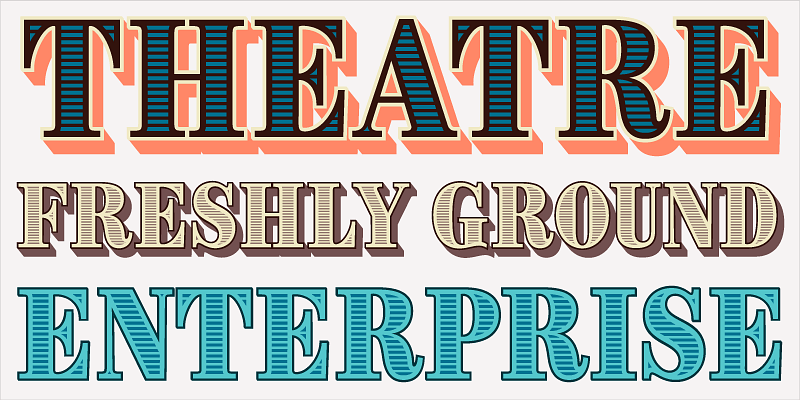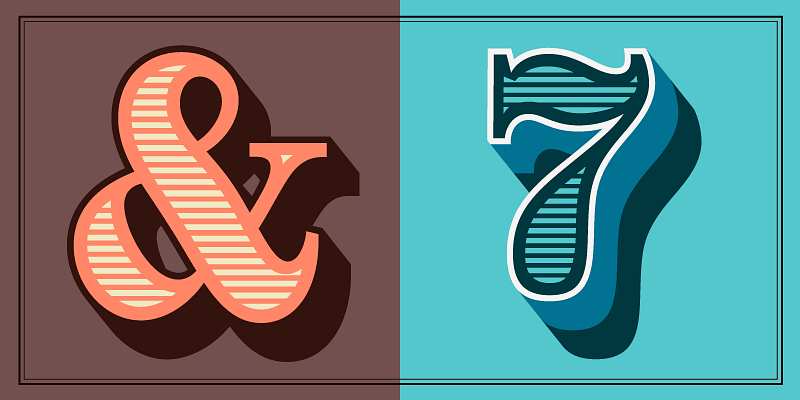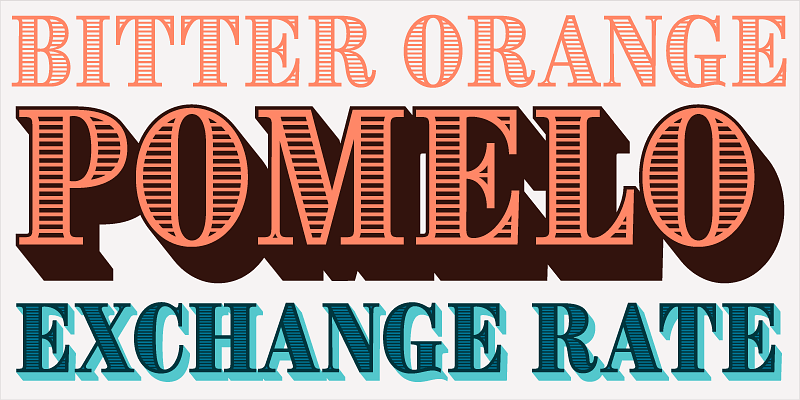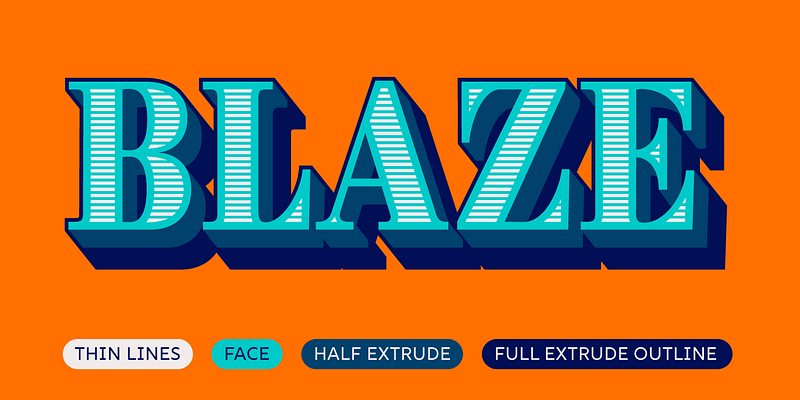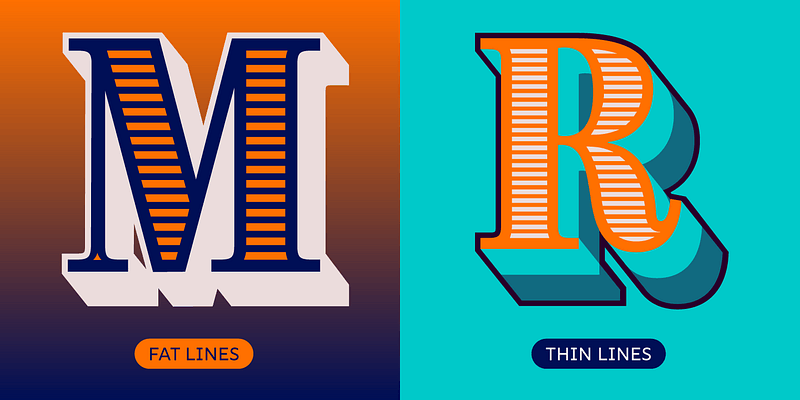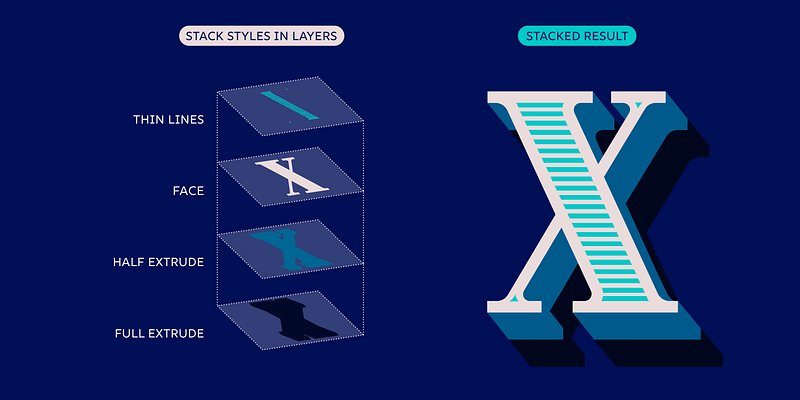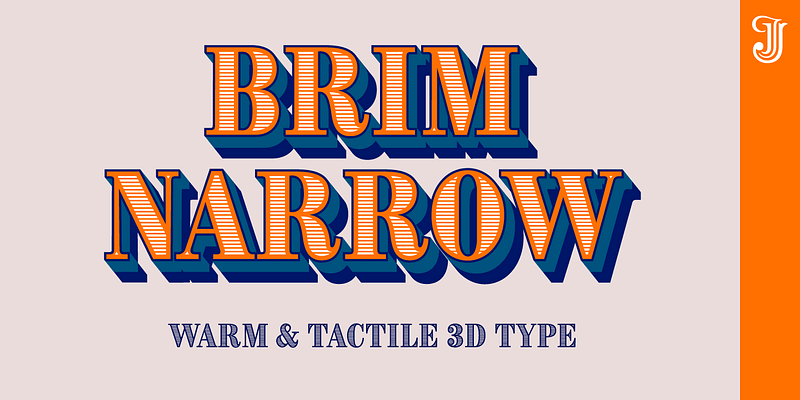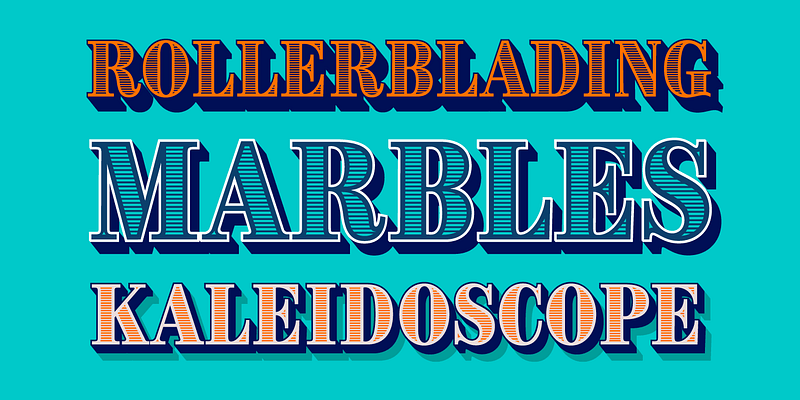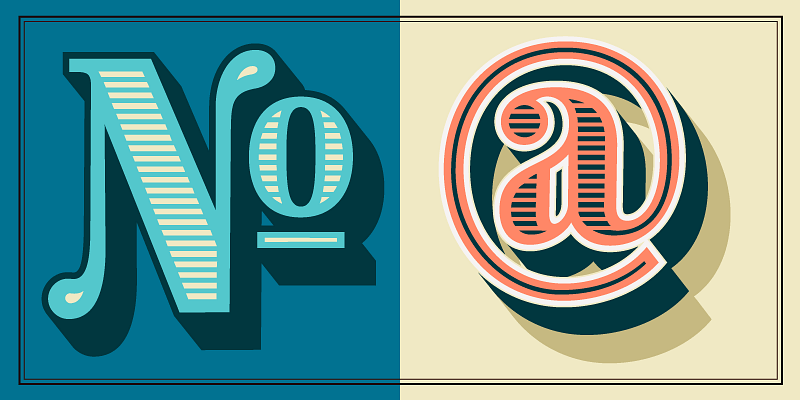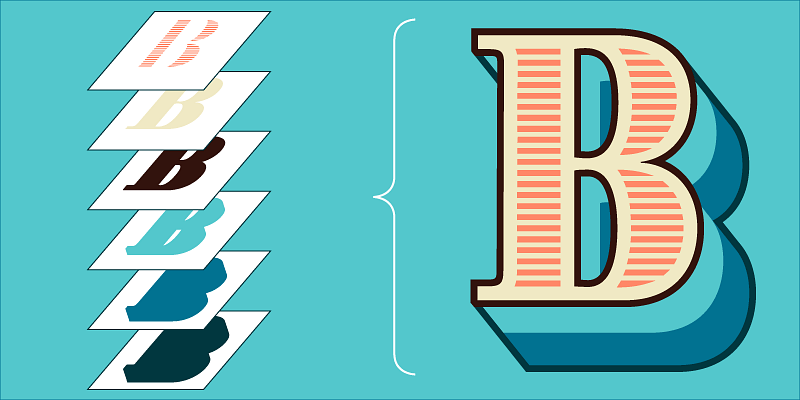
Inspired by chromatic woodtype from the 1800s, Brim Narrow’s styles stack to create a huge variety of decorative titles. Warm and tactile, it’s perfect for posters, packaging and logotypes.
The typefaces in Jamie Clarke’s growing library are often inspired by the lettering projects he also works on. Each new font aims to capture the energy and spontaneity of his lettering, through innovation and technology. The foundry’s goal is to craft original typefaces that communicate with flair.
Jamie’s foundry was established in 2013 after he studied type design at Reading University and letterpress at the St. Bride Foundation in London. He runs the Type Worship blog and was part of the team at 8 Faces typography magazine. Prior to this he spent a decade as a co-founder and Creative Director of a top digital agency in London.